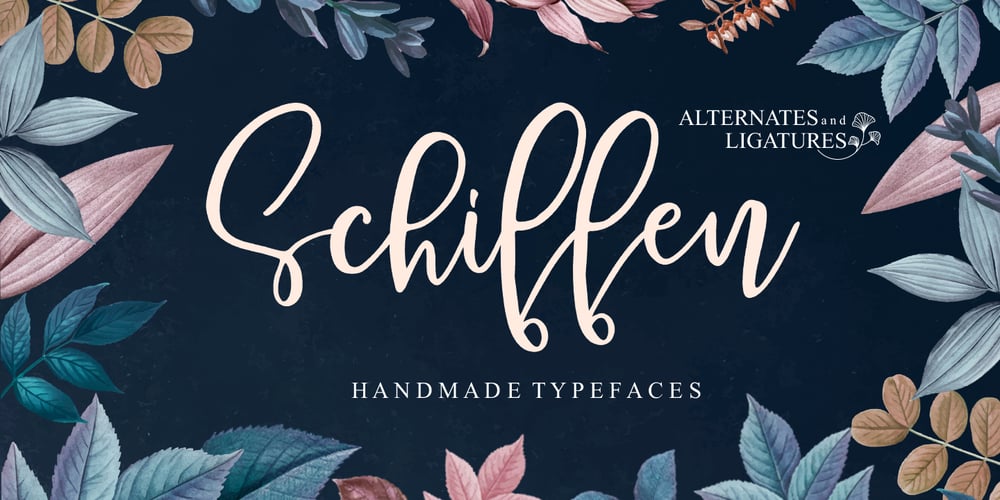
Schiffen Script Font Family was designed by Naufal Paramata and published by Youngtype. Schiffen Script contains 2 styles and family package options. Schiffen script is a hand brush font made with brushes and ink. This typeface is ideal for use in thick watercolor designs or handwriting styles, such as blog titles, posters, wedding elements, t-shirts, clothing, book covers, business cards, greeting cards, branding, merchandise etc.Contains full set:- Uppercase- Lowercase- alternative- fastener- Punctuation- number- multilingual support.And also Schiffen sans, works in harmony with Schiffen’s scripts to create exceptional typographic creations. Get inspiration from the preview above.Contains full set:- Uppercase,- Lowercase,- binder,- Punctuation,- number,- multilingual support.How to access all alternative characters, using Windows Character Map with Photoshop:- https://www.youtube.com/watch?v=Go9vacoYmBwHow to access all alternative characters using Adobe Illustrator:- https://www.youtube.com/watch?v=XzwjMkbB-wQThank you!